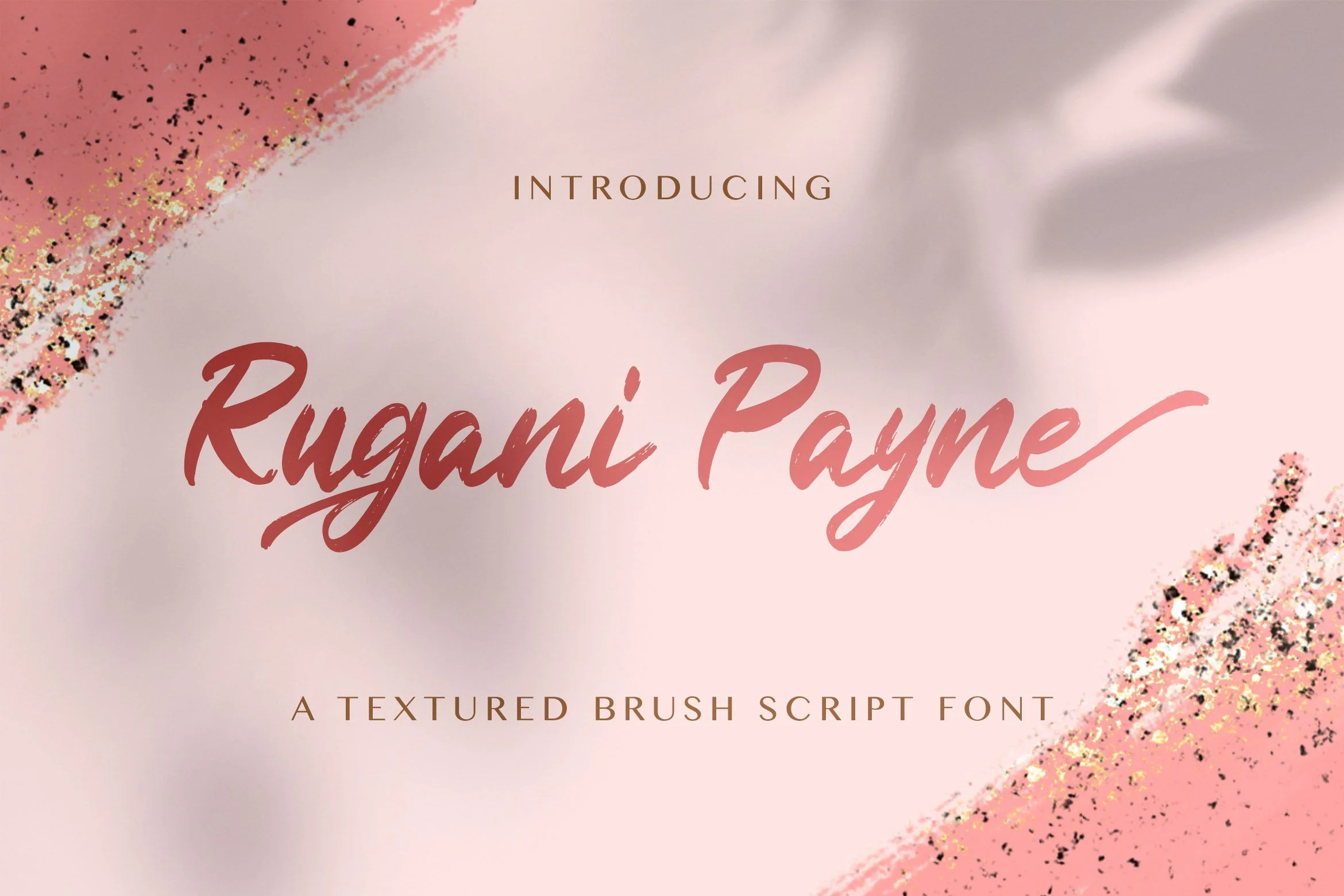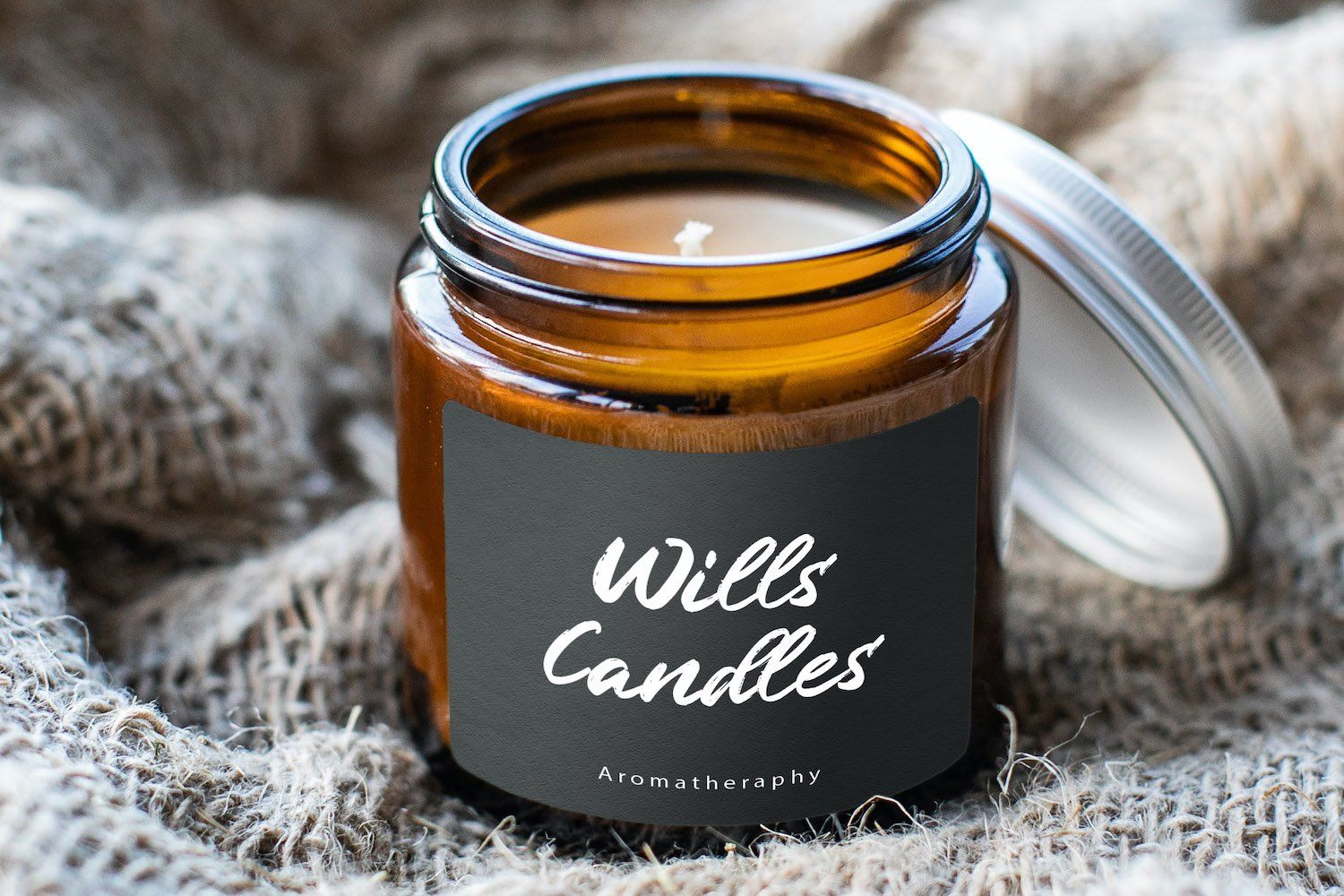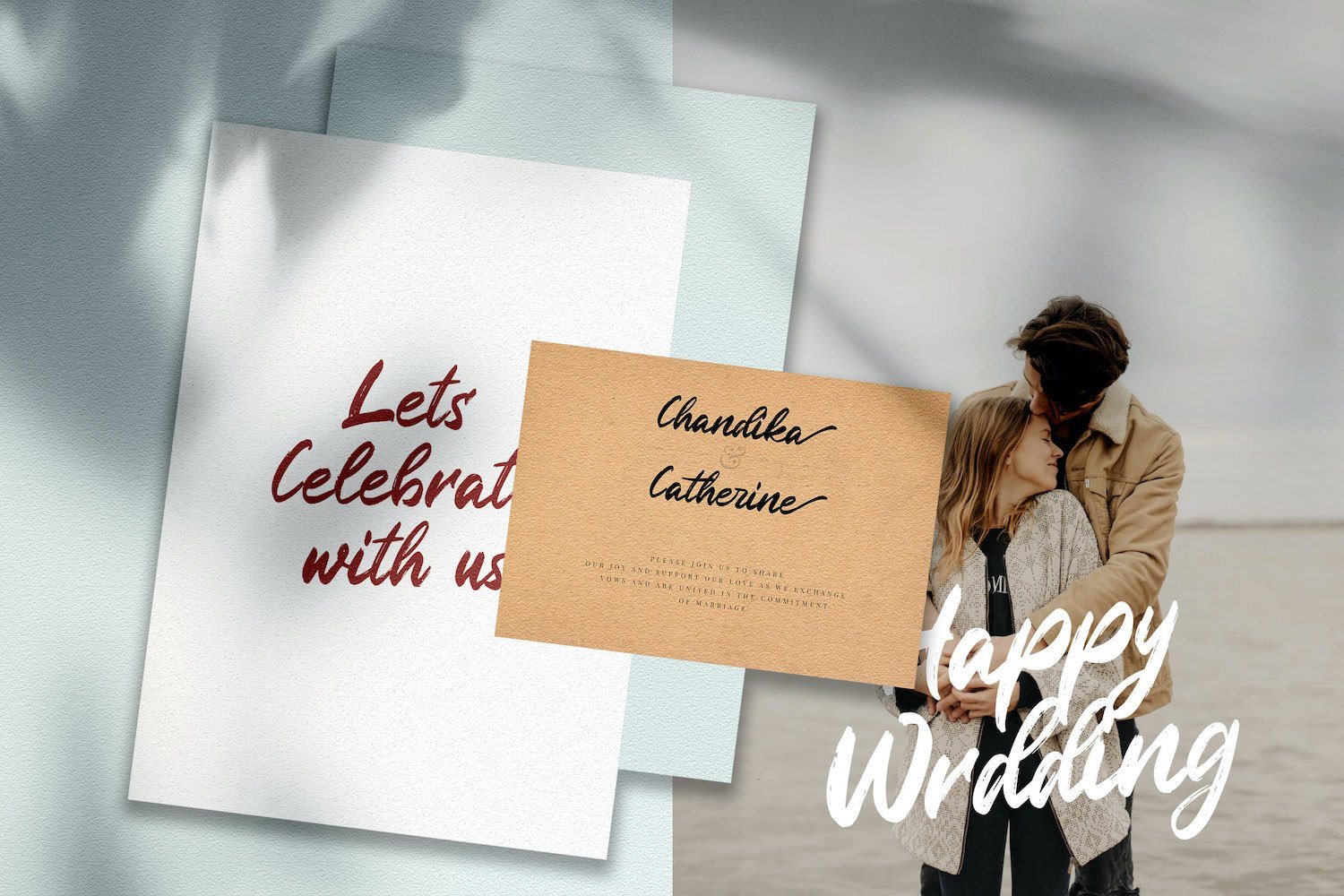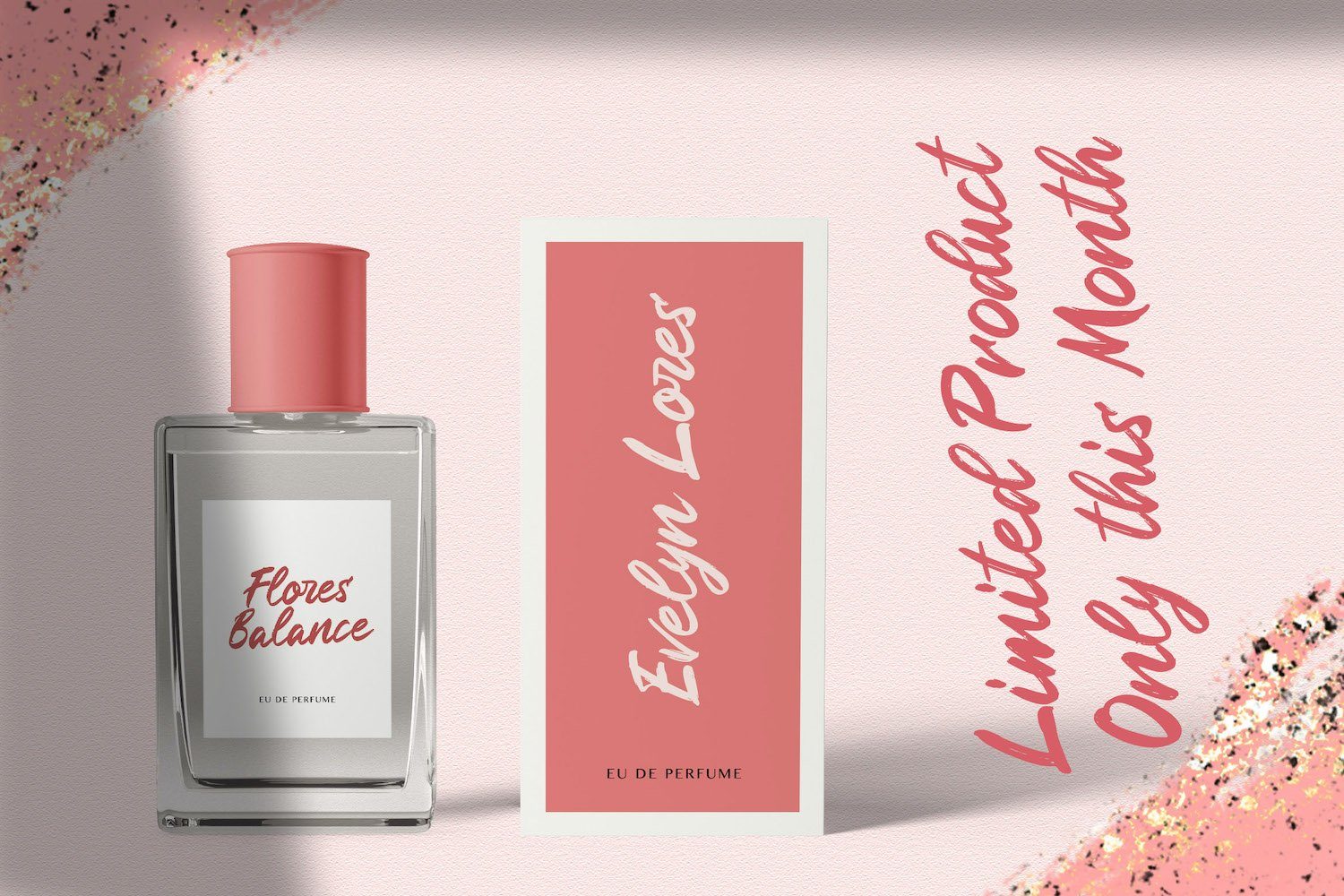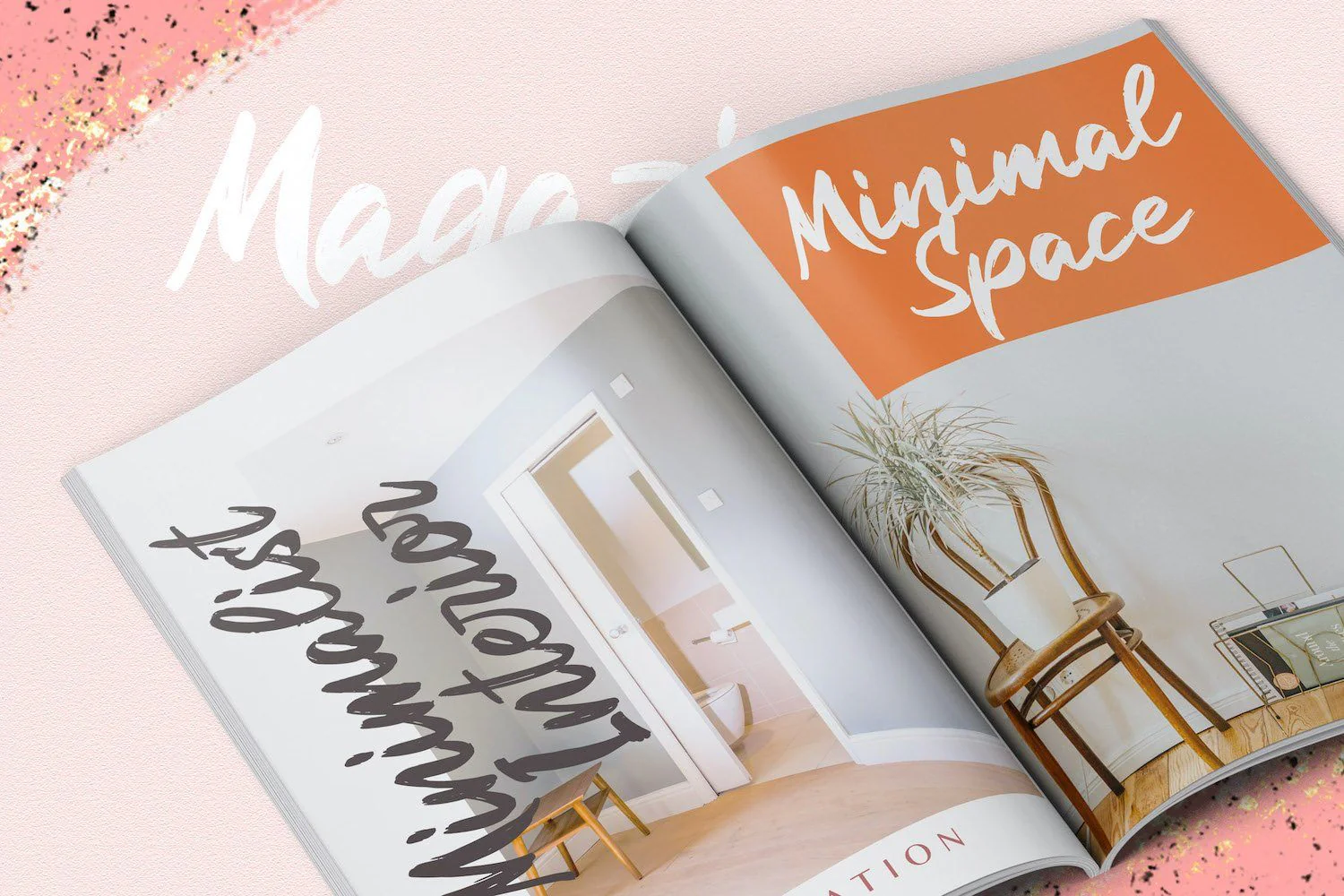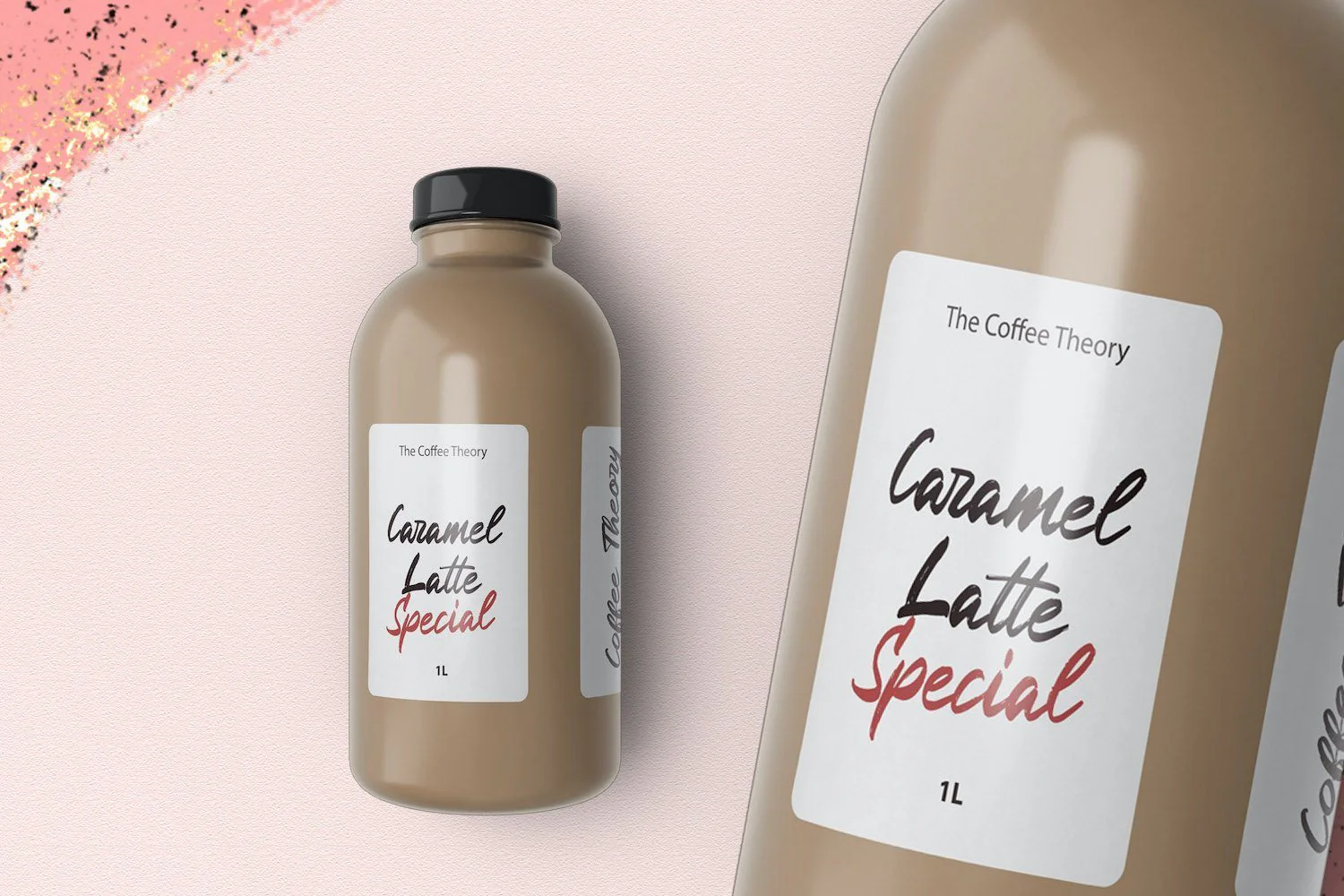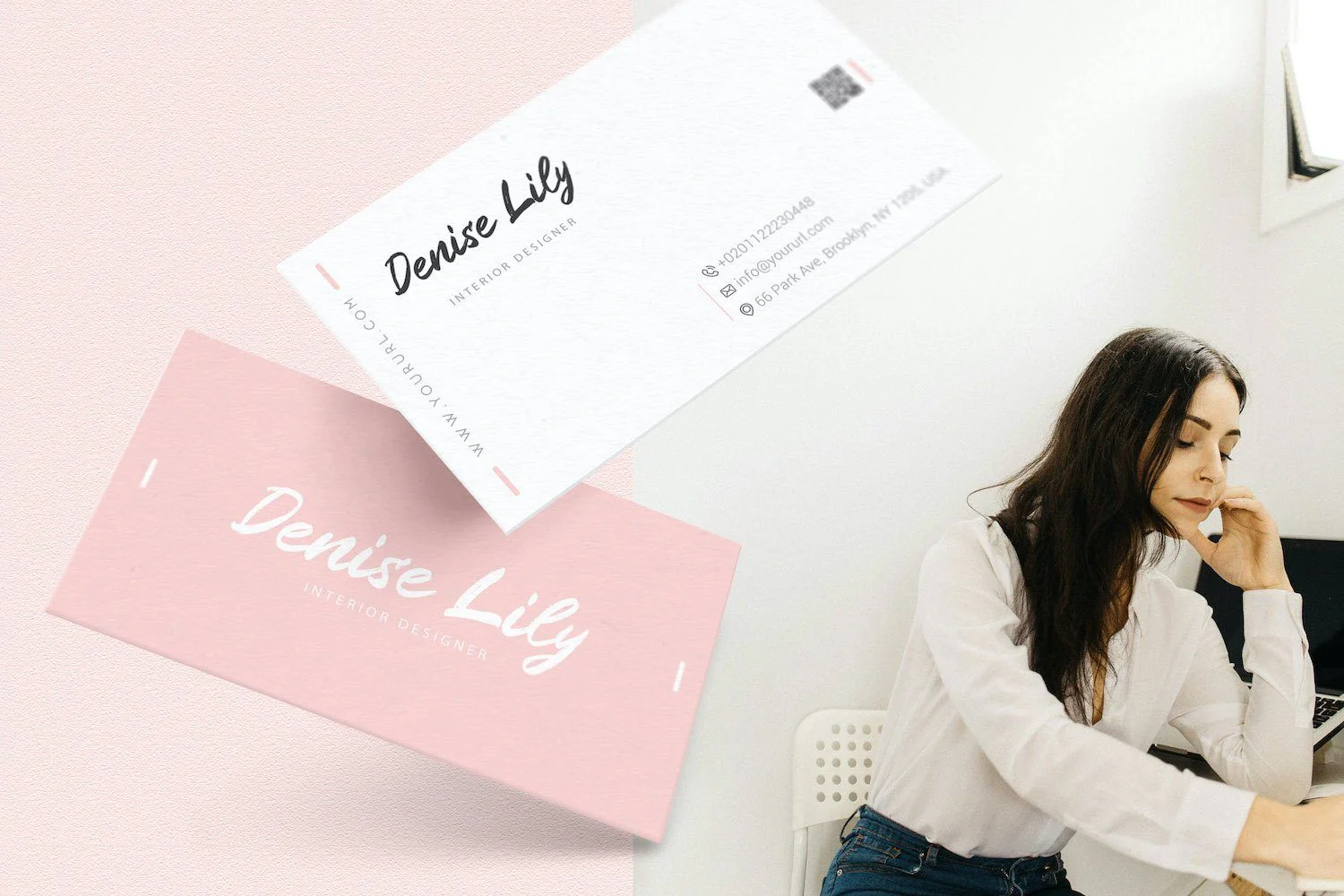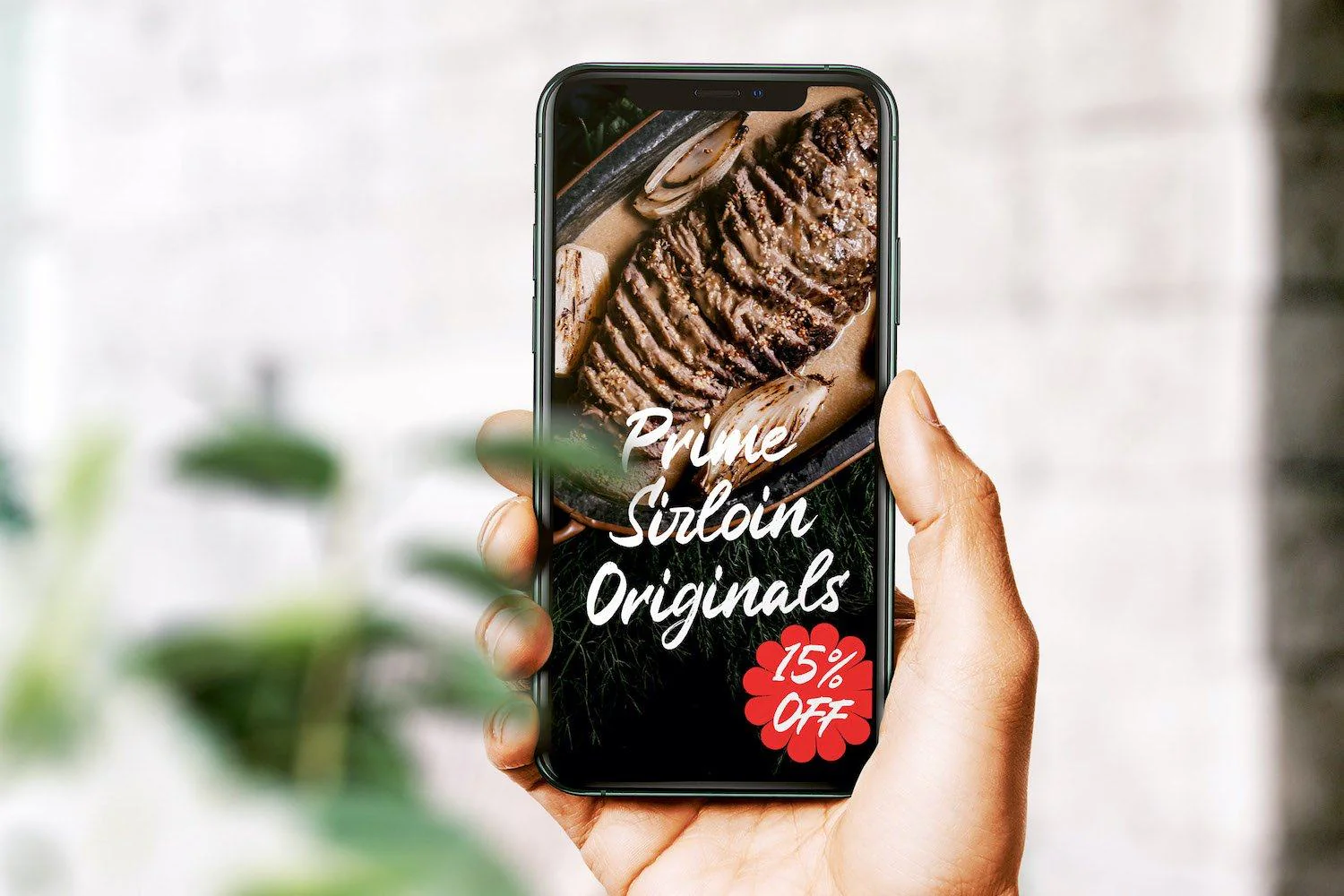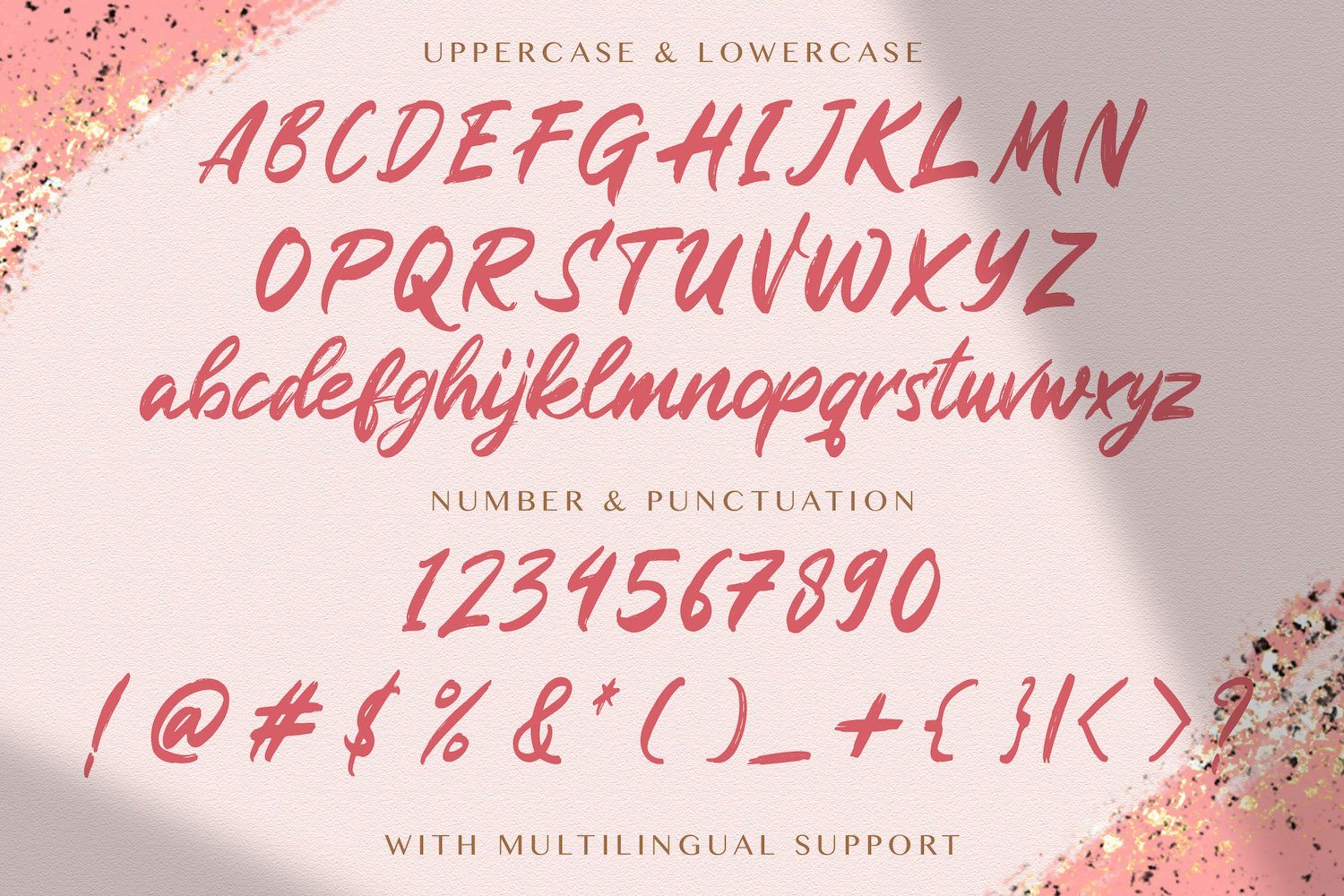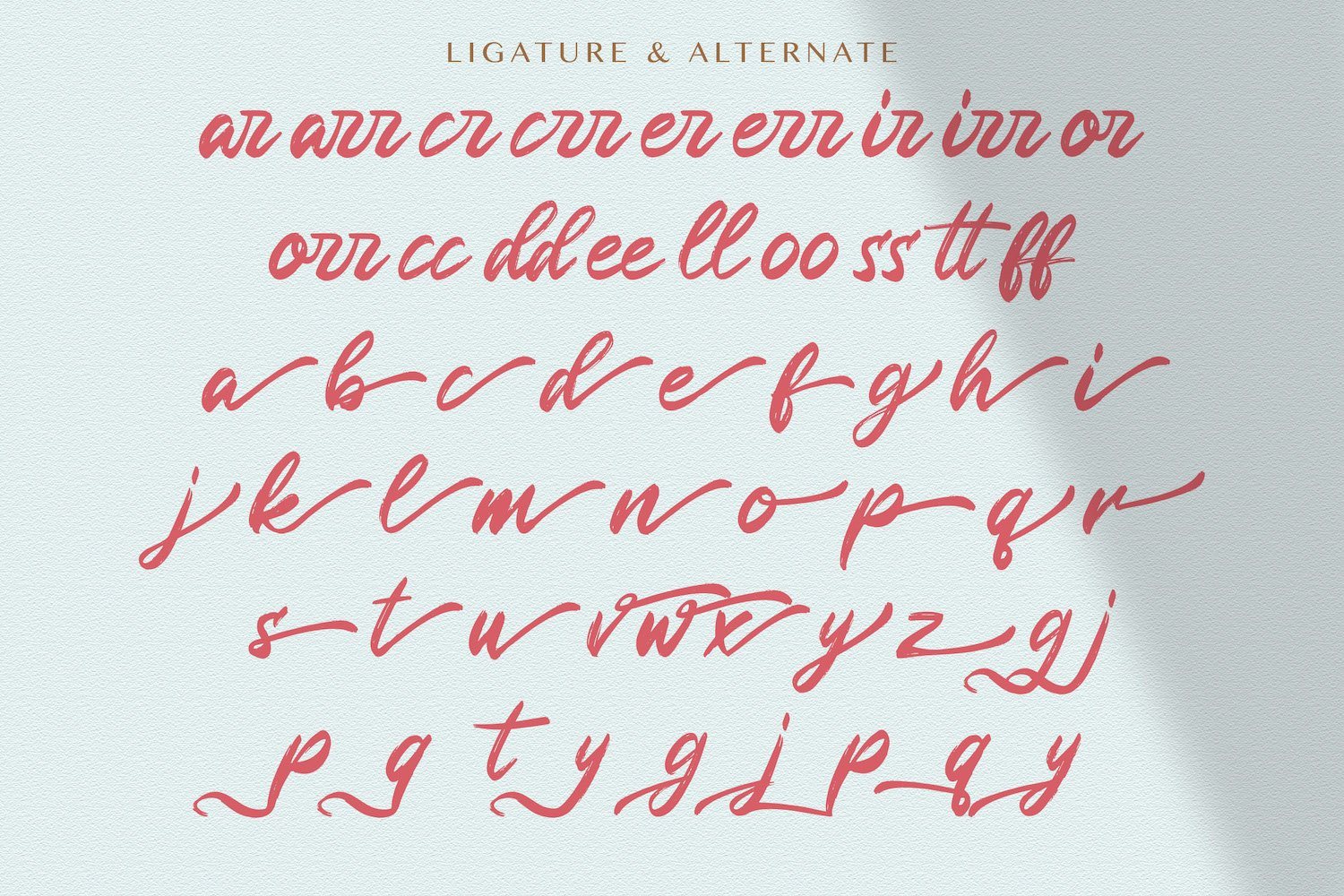
Rugani Payne - Textured Brush Font
Introducing Rugani Payne - Textured Brush Font
Rugani Payne is a textured handbrush font. Get inspired by its unique and beautiful style and add it to your favorite designs!
Introducing Rugani Payne - Textured Brush Font
Rugani Payne is a textured handbrush font. Get inspired by its unique and beautiful style and add it to your favorite designs!